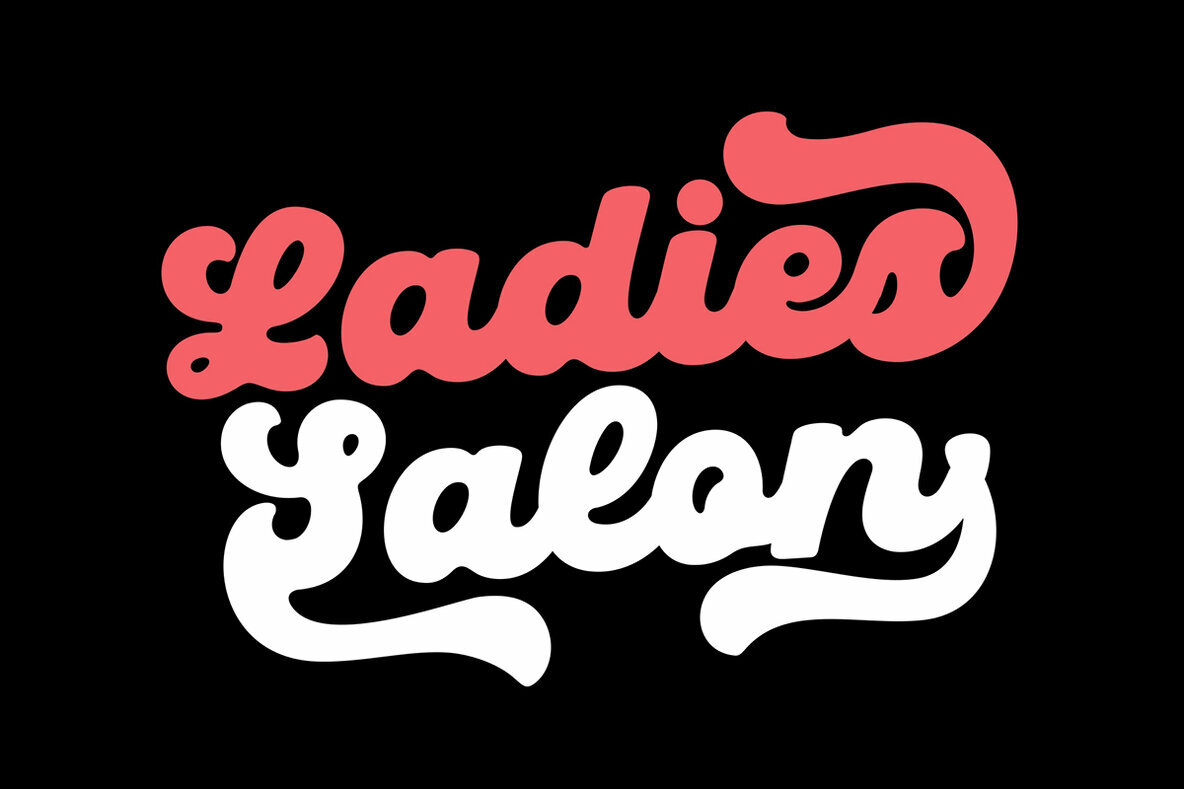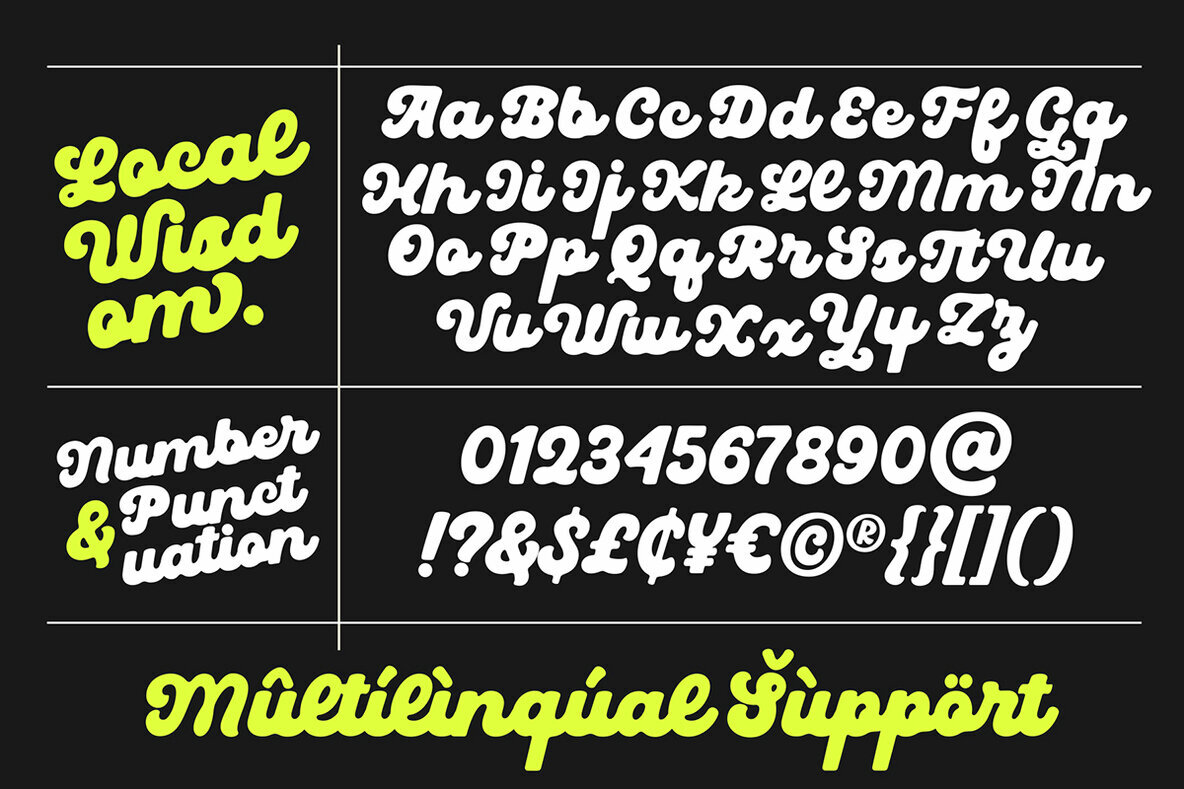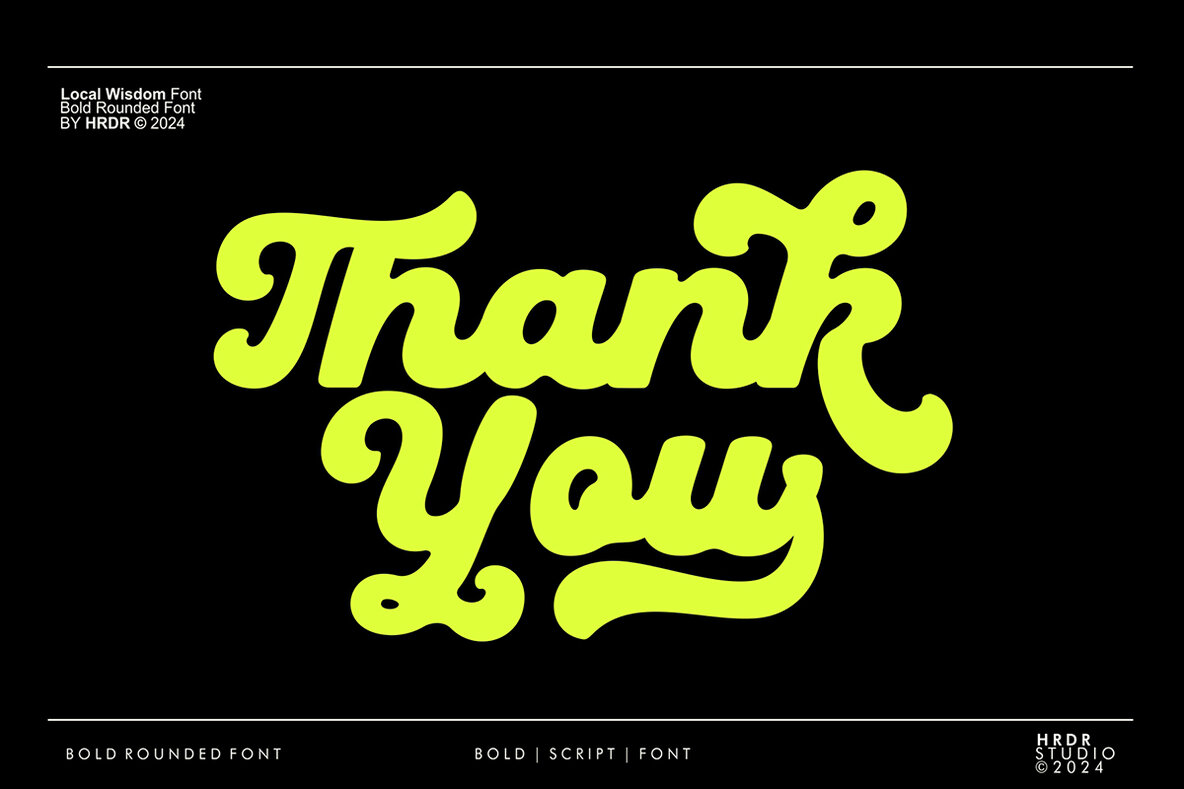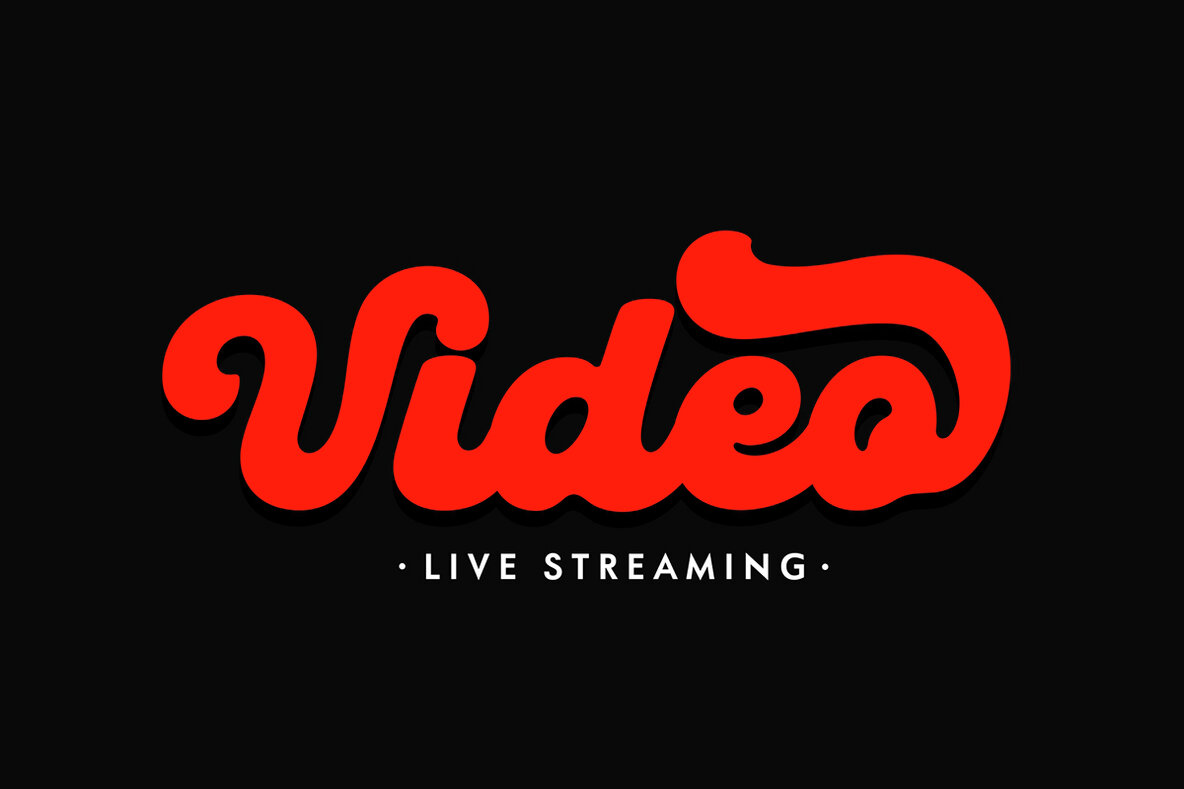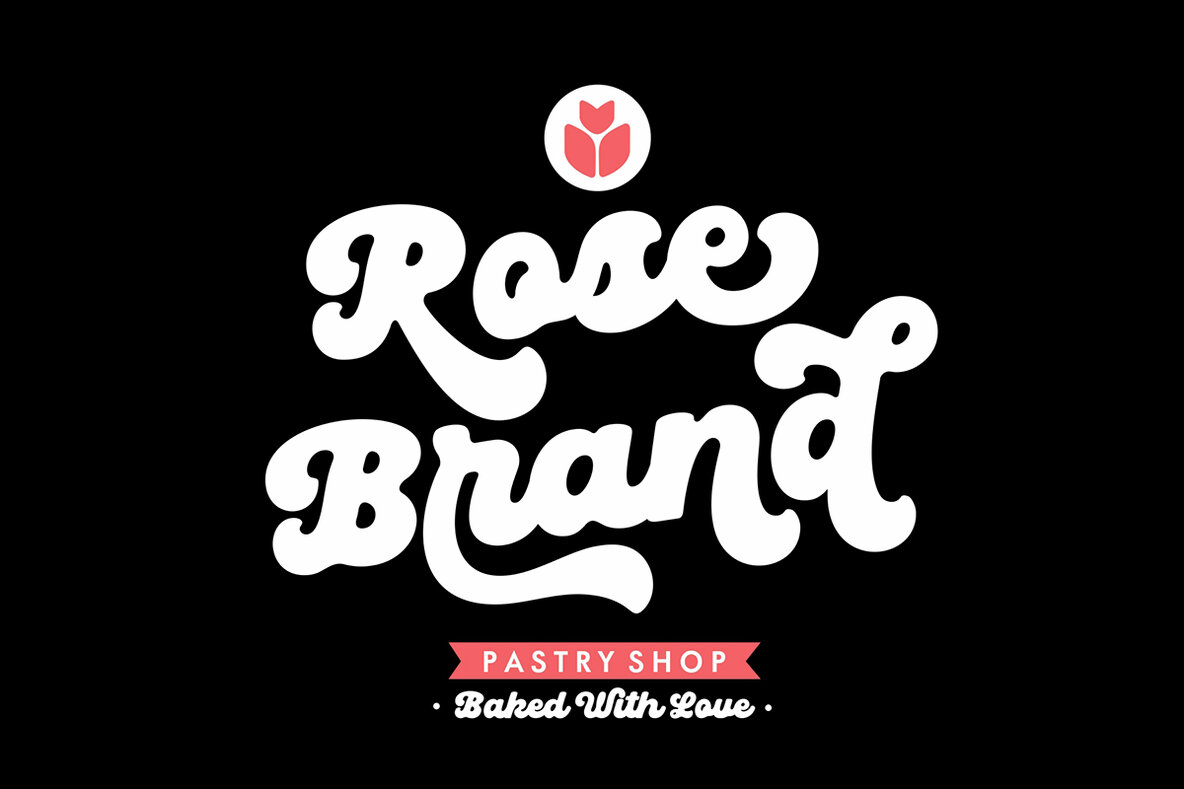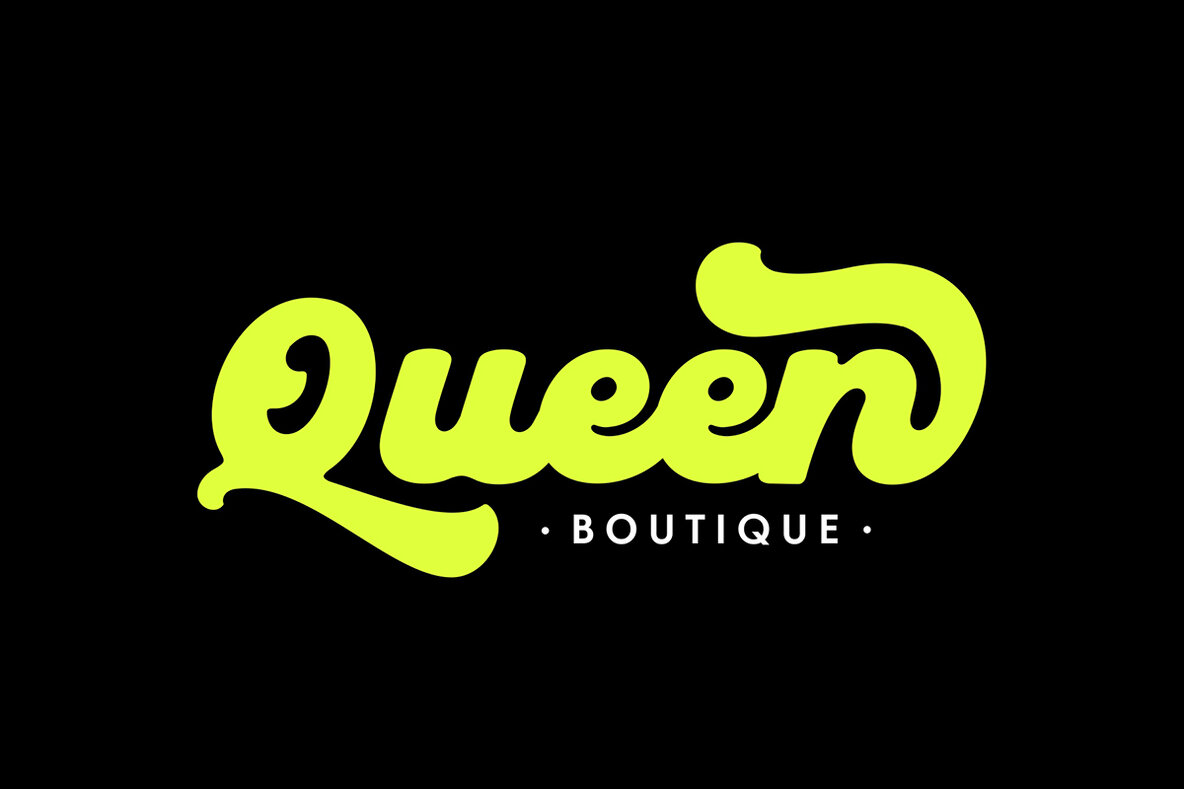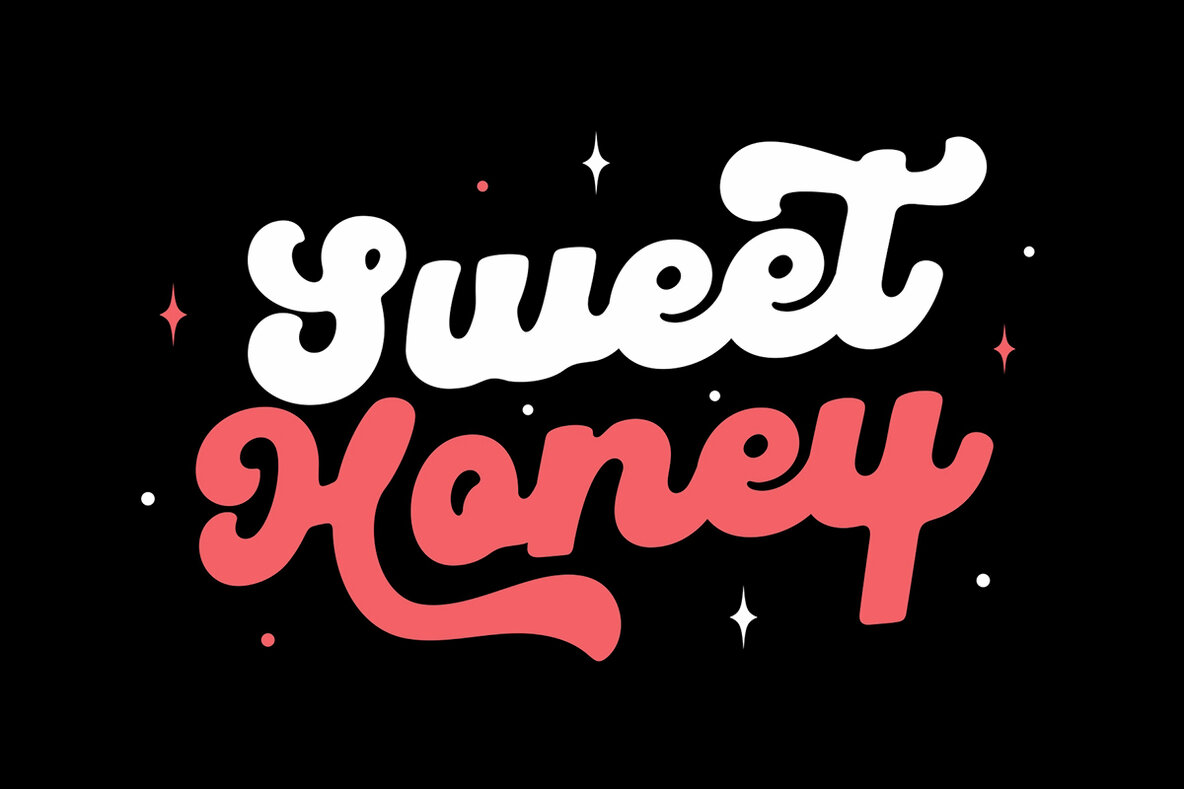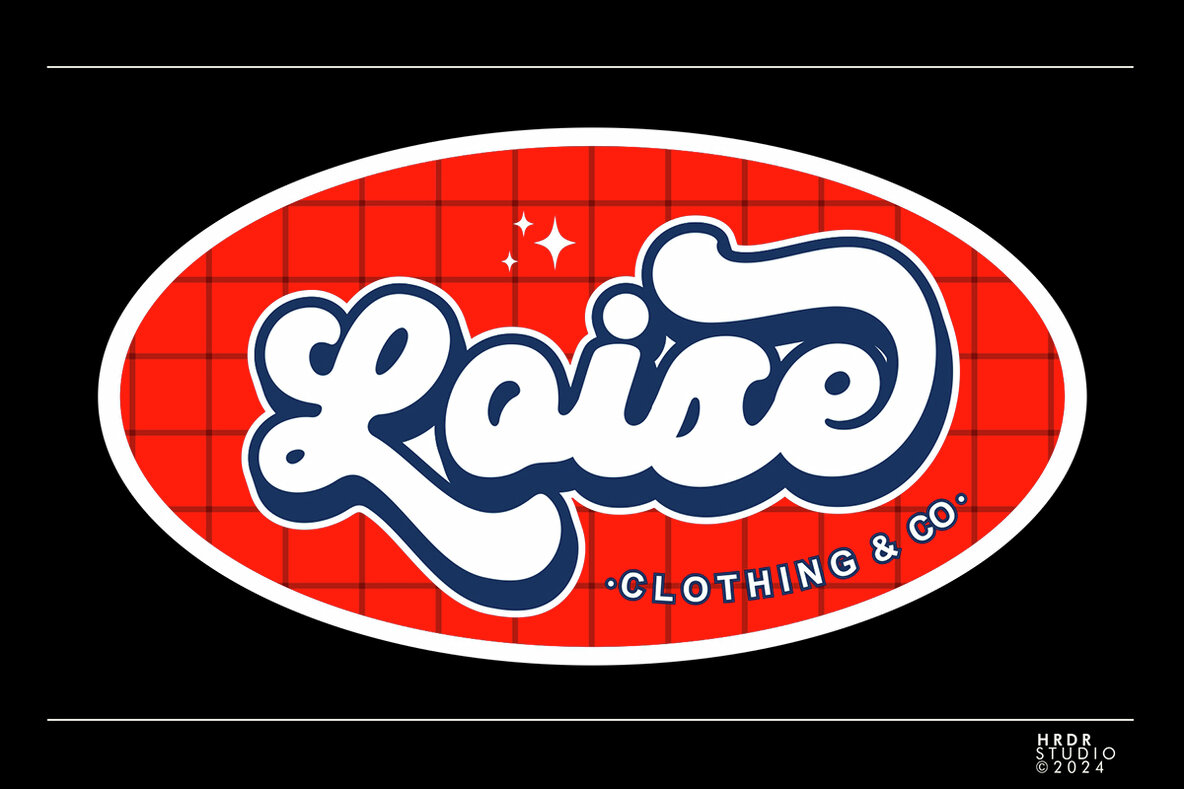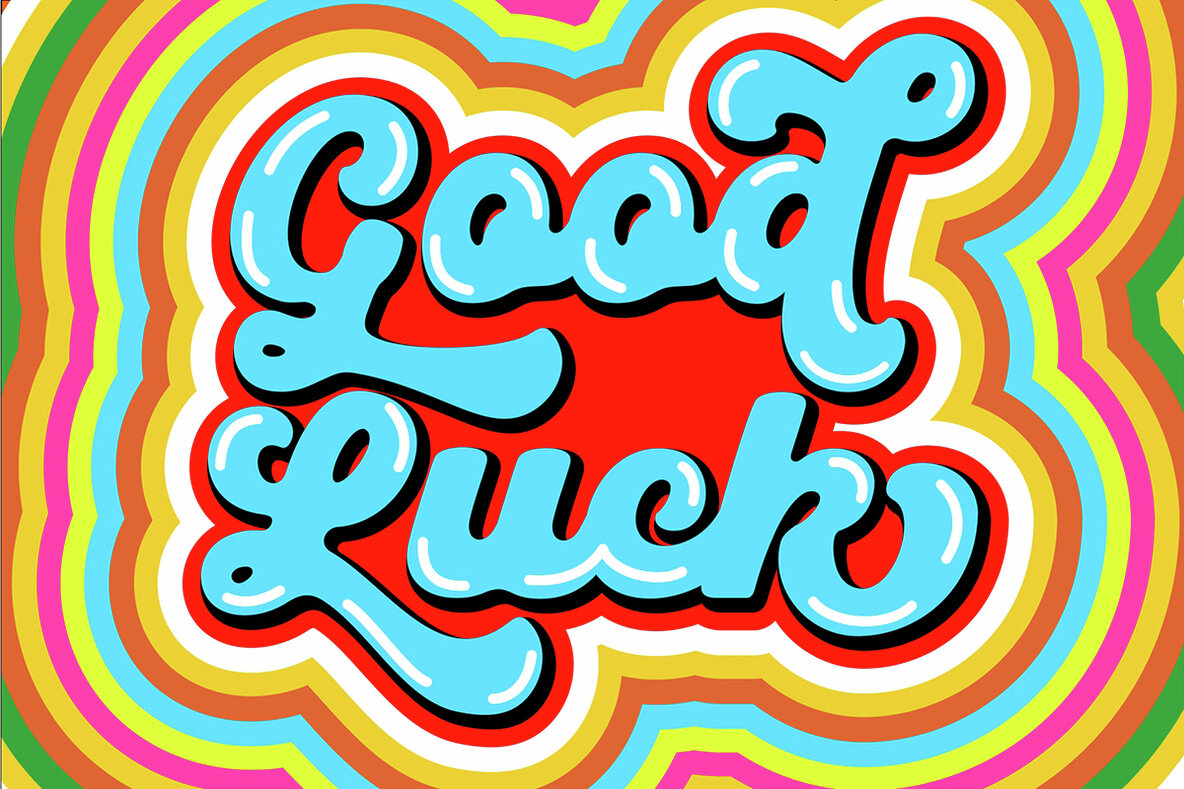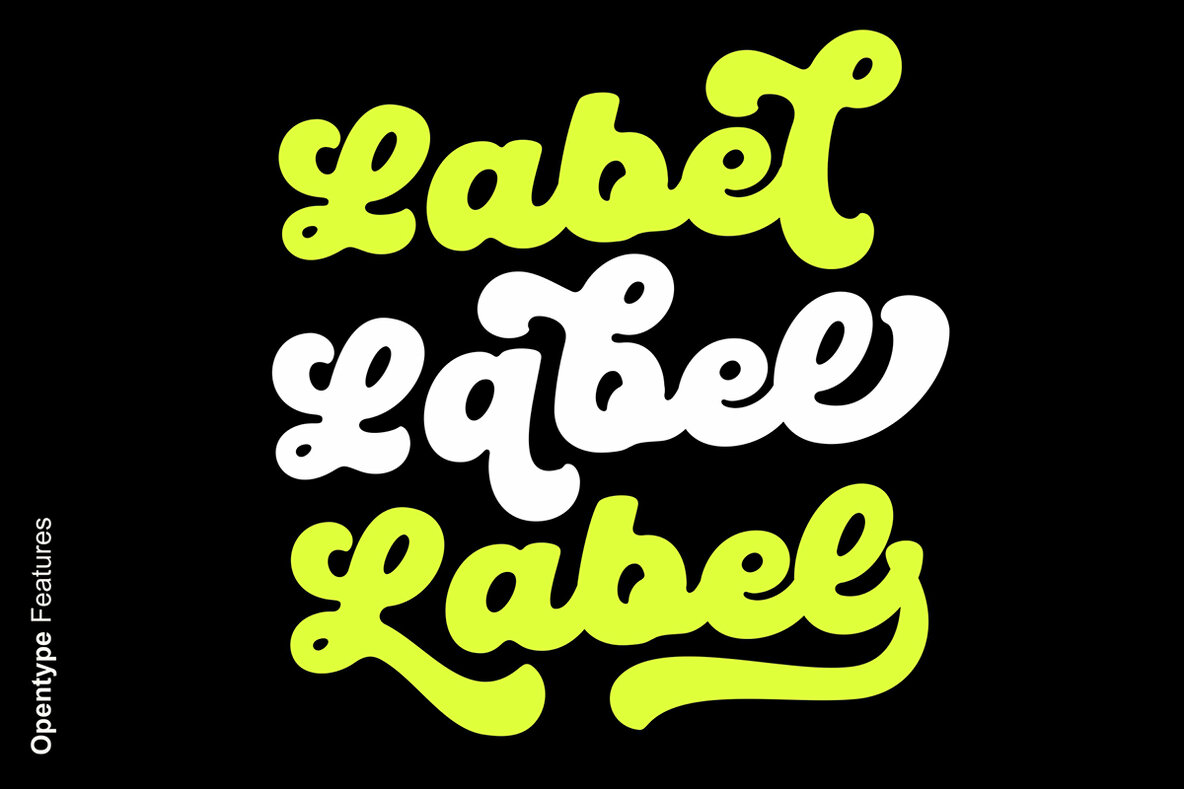
Local Wisdom Font
Local Wisdom
Local Wisdom is a bold, curvaceous script font that combines a retro charm with elegant appeal. This handwritten style is ideal for designers looking to add a personal and expressive touch to their projects. Whether crafting eye-catching headlines, designing artistic logos, creating unique branding, or developing playful posters, Local Wisdom offers a distinctive flair that enhances any design context.
The font comes with an extensive set of features, including uppercase and lowercase letters, numeric and multilingual support, ligatures, and stylistic alternates from Ss01 to Ss05. Additionally, it includes swash options to provide creative flexibility, making it perfect for projects that require a memorable and unique impression. With PUA encoding, it's also compatible with software that lacks OpenType support. This ensures seamless integration across a wide range of design platforms, offering versatility and broad usability for your creative endeavors.